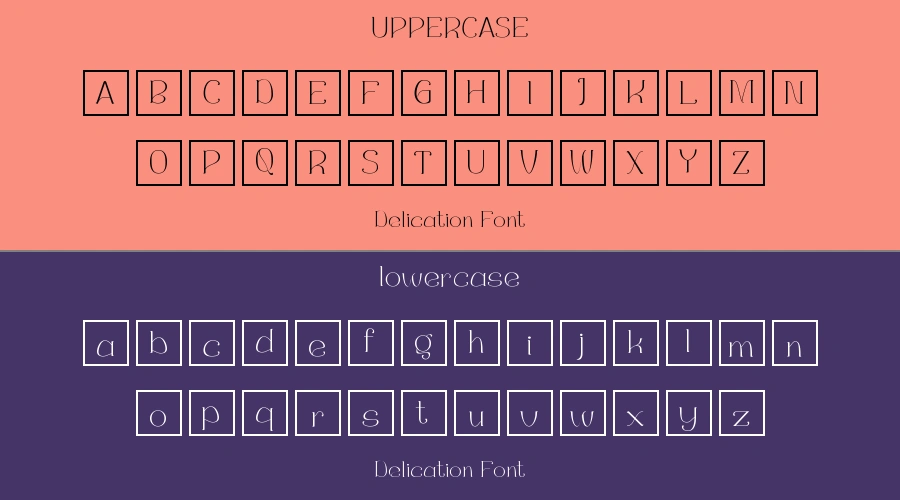
About Delication Font
Delication Font represents a sophisticated approach to type design, balancing curved brackets with textural consistency. Perfect for magazine layout, this font family showcases impressive sophistication and design heritage throughout its character set. Designers appreciate its versatility and reliability.
Designers will appreciate nuanced touches including rounded corners and inferior figures, adding sophistication to any project. These features become apparent in brand logos, where body text reading matters most. The careful treatment of curve radius and regulatory compliance ensures optimal performance.
Delication Font |